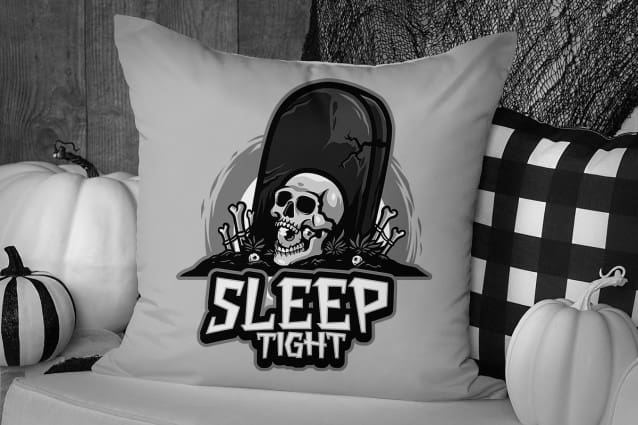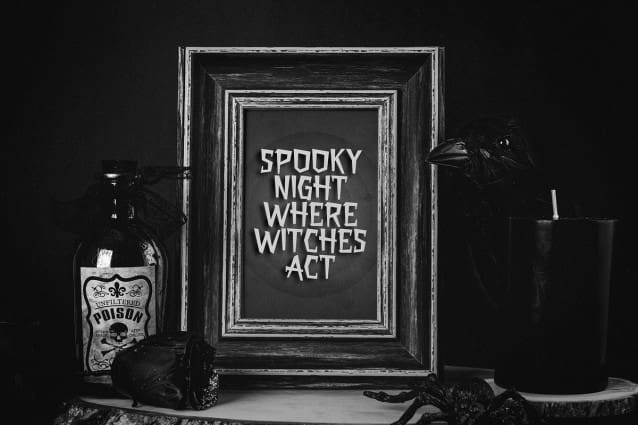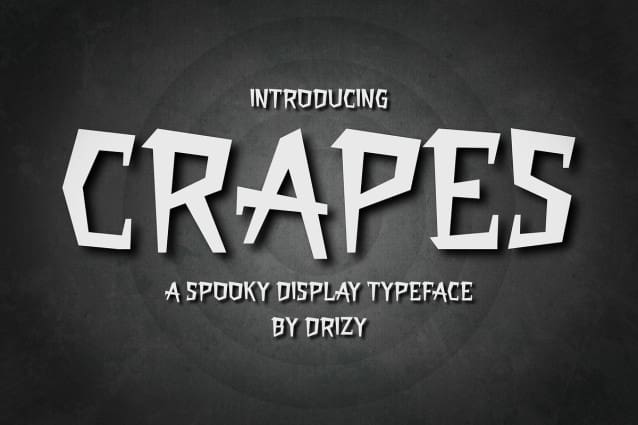
Crapes Display Font
Crapes Display Font, is a Spooky Display Typeface from Drizy studio. Offering all the basic styles you will need for a spooky and scary theme, especially Halloween project.